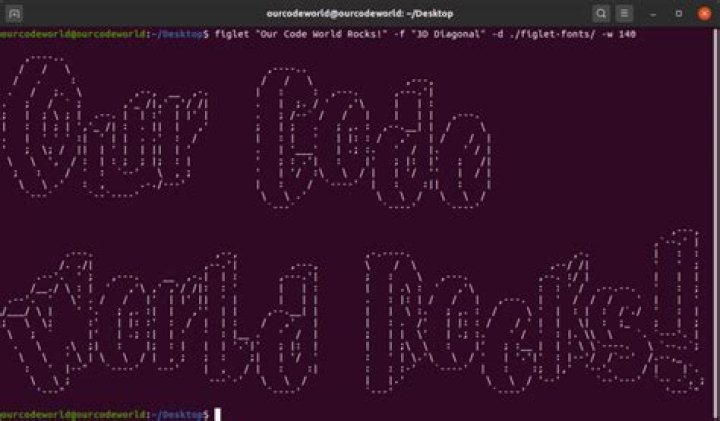
How do you get the figlet font?
Produces this output.
- Style Text. For the basics, open a terminal and enter figlet followed by the text to style.
- Standard I/O.
- Changing Fonts.
- Figlet Font Examples.
- Aligning Text.
- Custom Fonts.
How do you change the font on figlet?
To change to a particular font, use the -f option, it also reads fonts from the same source as figlet.
What is figlet in C?
FIGlet is a computer program that generates text banners, in a variety of typefaces, composed of letters made up of conglomerations of smaller ASCII characters (see ASCII art). The name derives from “Frank, Ian and Glenn’s letters”. FIGlet was featured as a Debian Package of the Day in 2007.
How do you center text in figlet?
- the -c mean center.
- the -w num sets the line width for the figlet.
- the tput cols returns the columns of the current terminal.
How do I add ASCII art in Linux terminal?
Add Bold ASCII Art to Your Linux Terminal